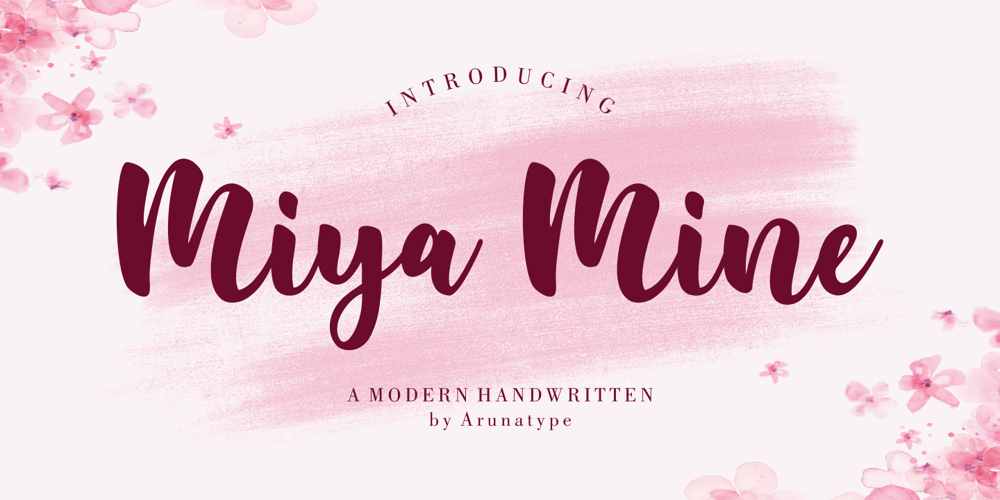
Miya Mine Font Family was designed by Yudi Safiyudin and published by Arunatype. Miya Mine contains 1 styles and family package options. Miya Mine is a sleek and unique handwritten font, carefully crafted with a touch of creativity. Great for product packaging, branding projects, magazine covers, social media, weddings, or simply used to express words over a background.This font is made for those who need a beautiful and refreshing look.This font is PUA encoded, which means you can access all of the glyphs and swashes with ease!